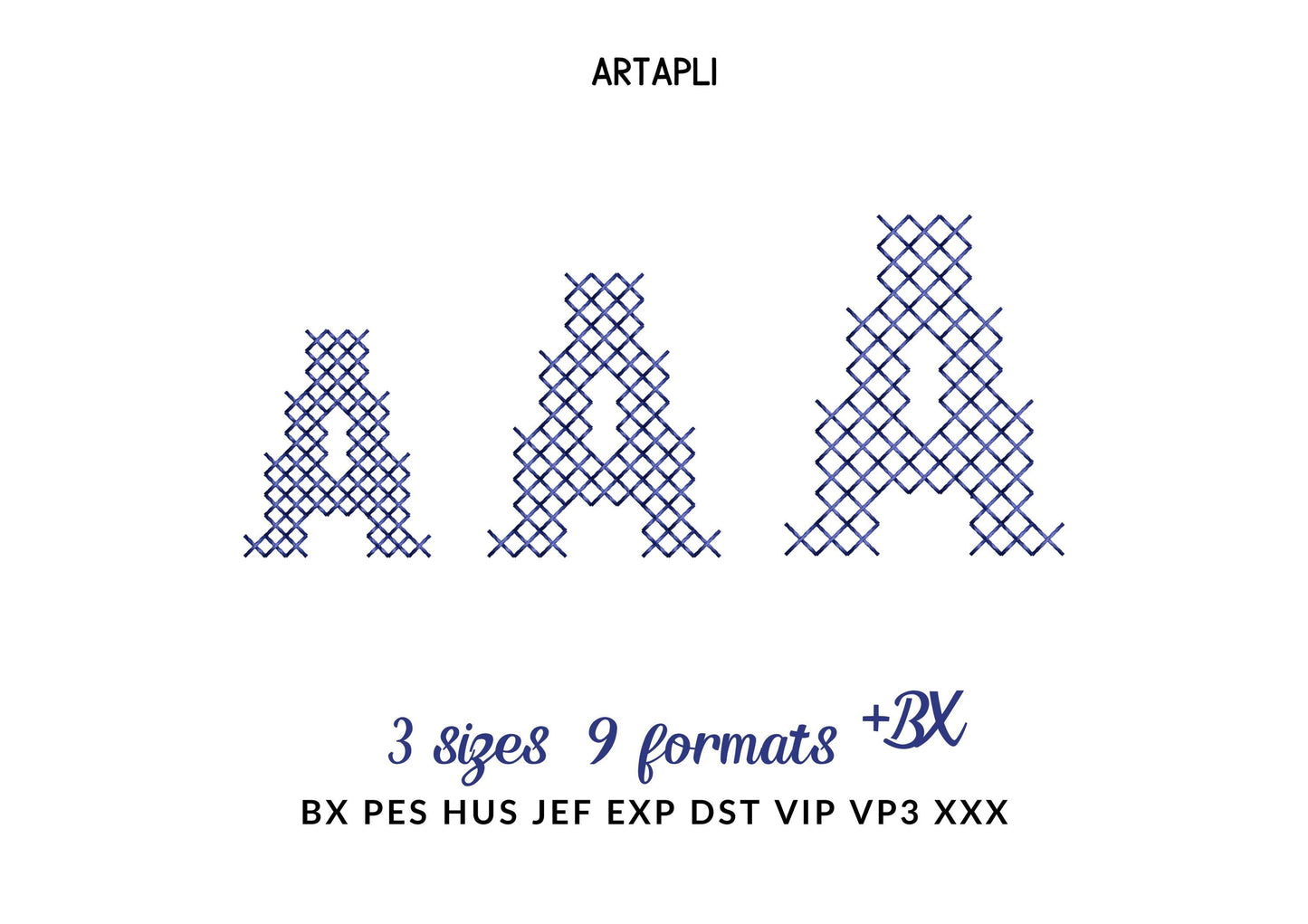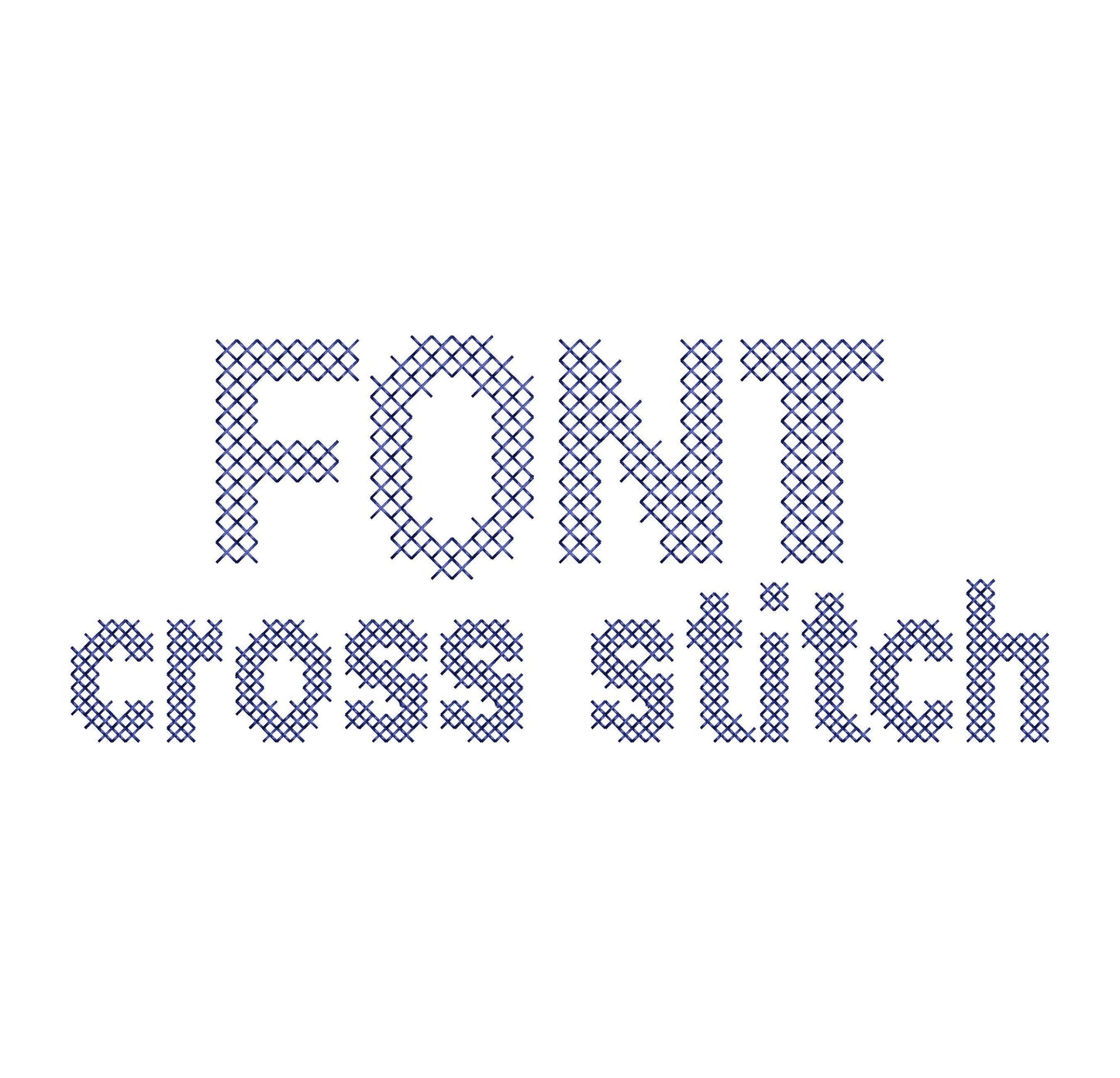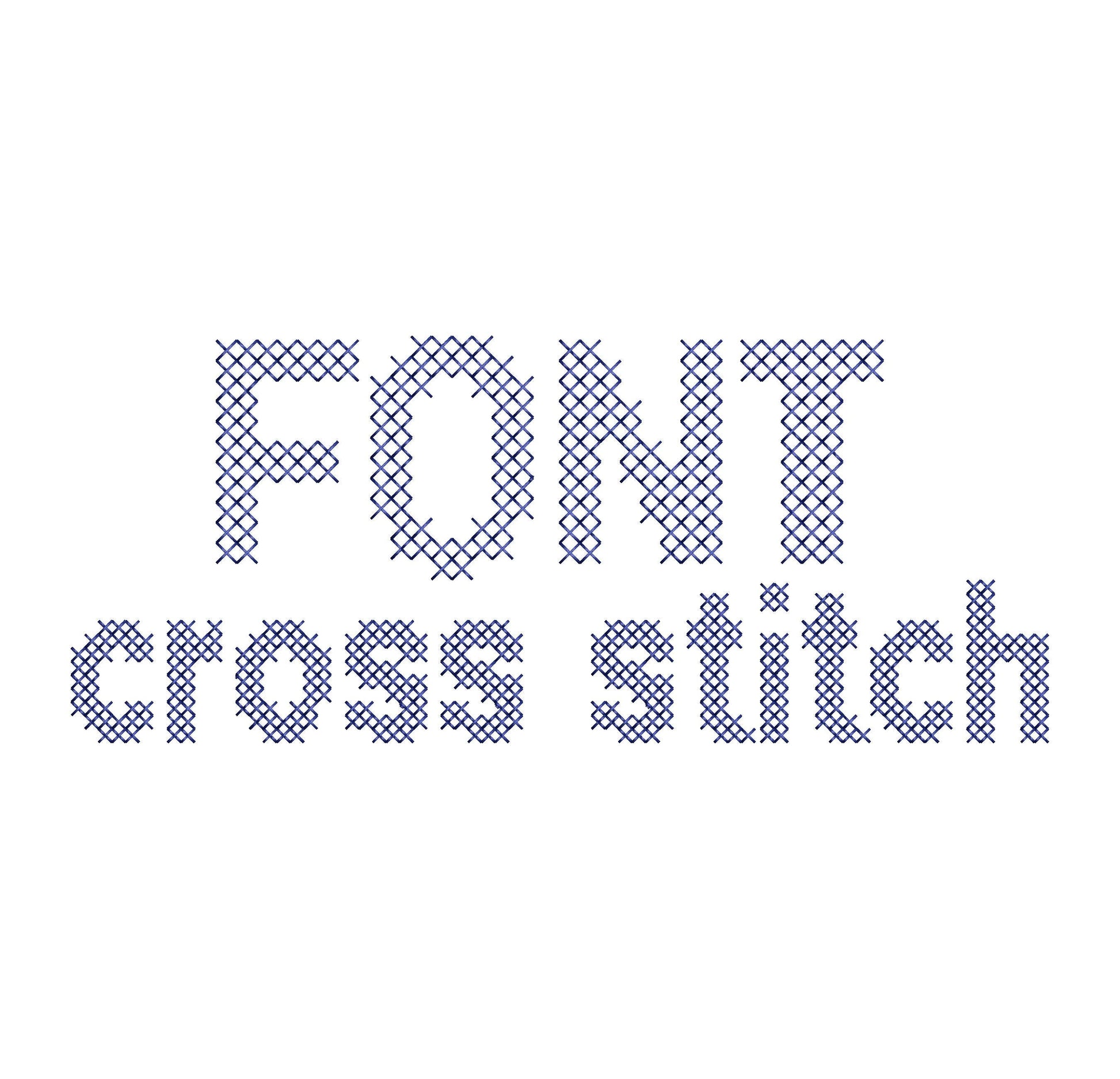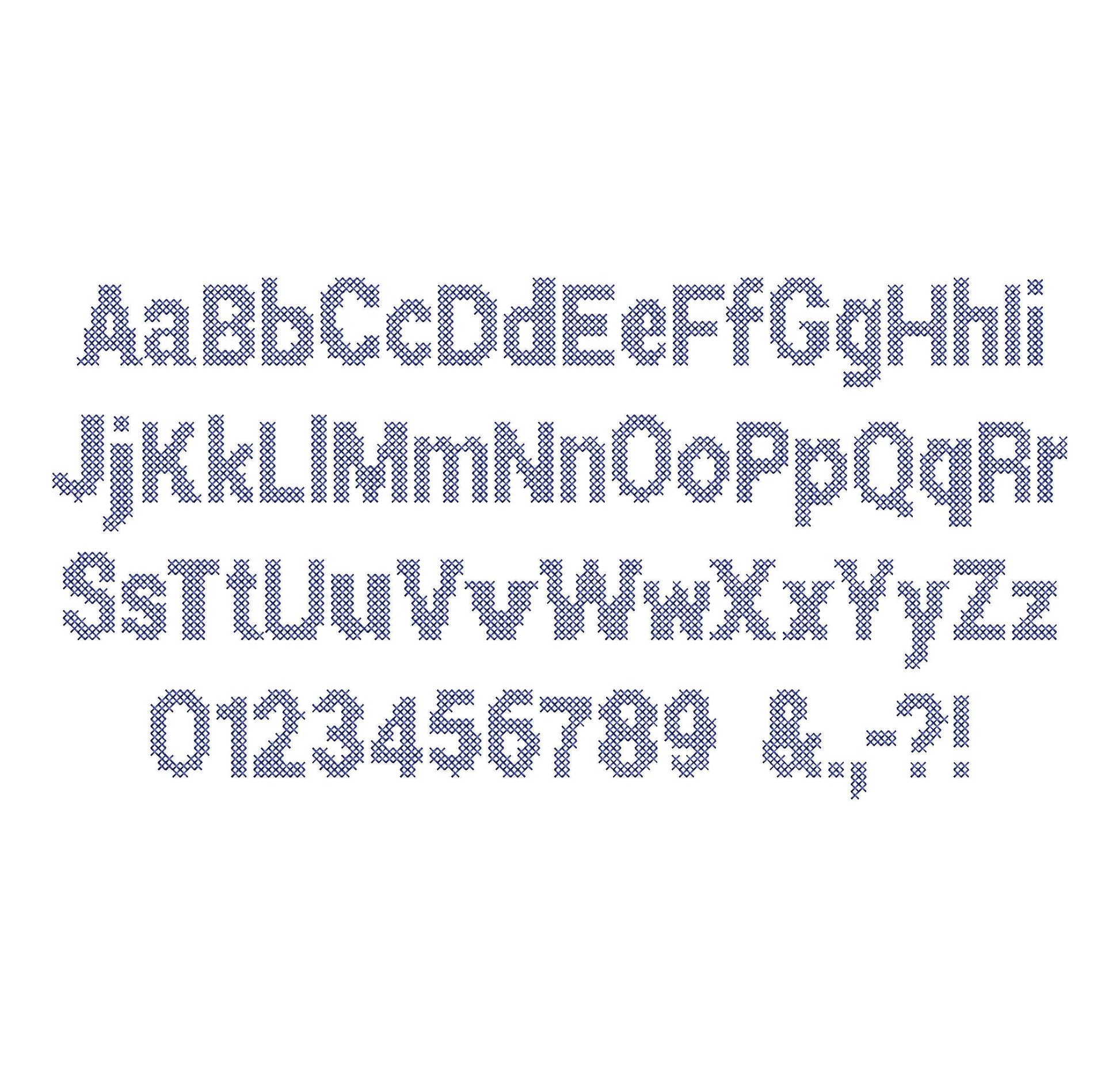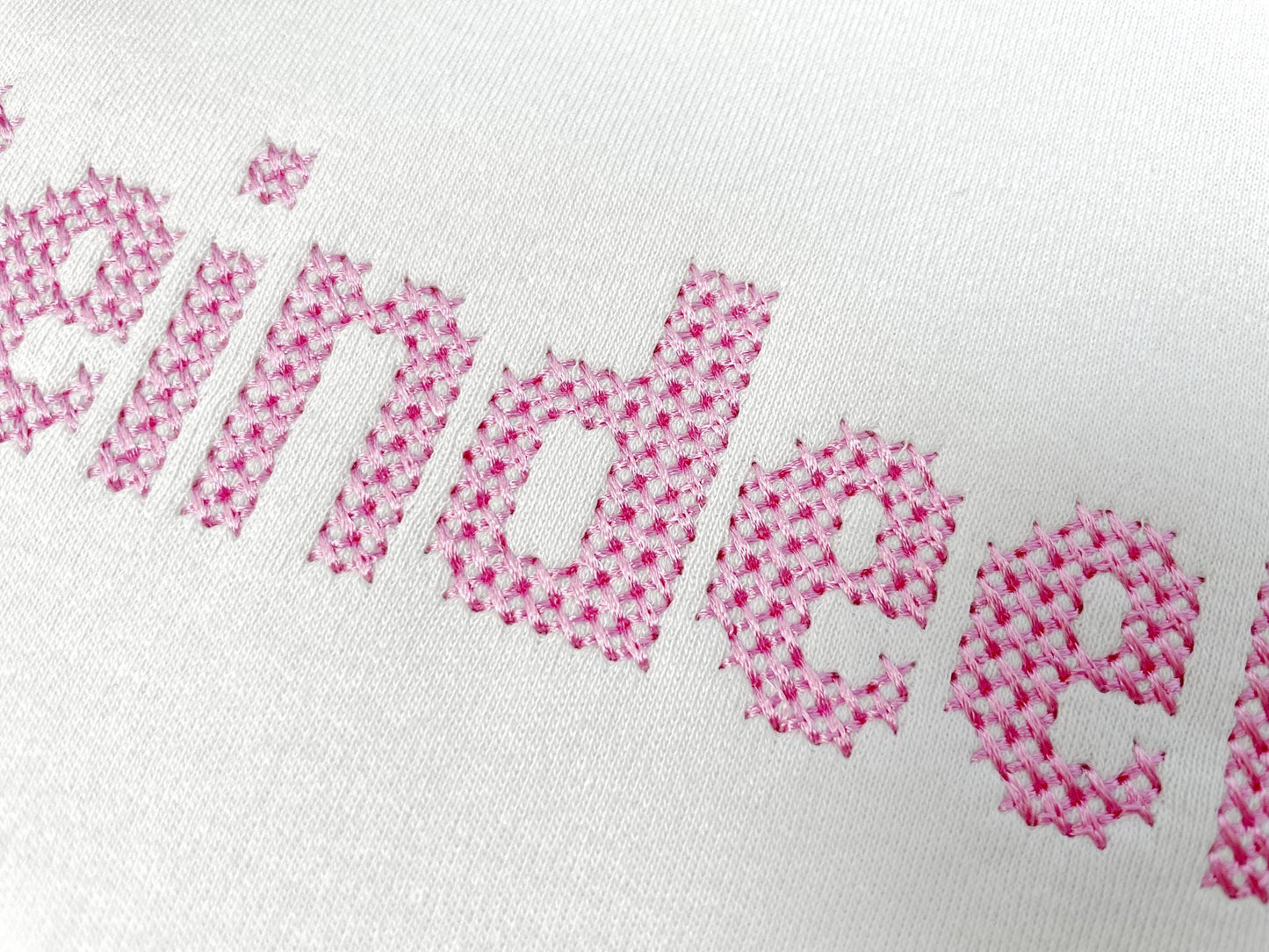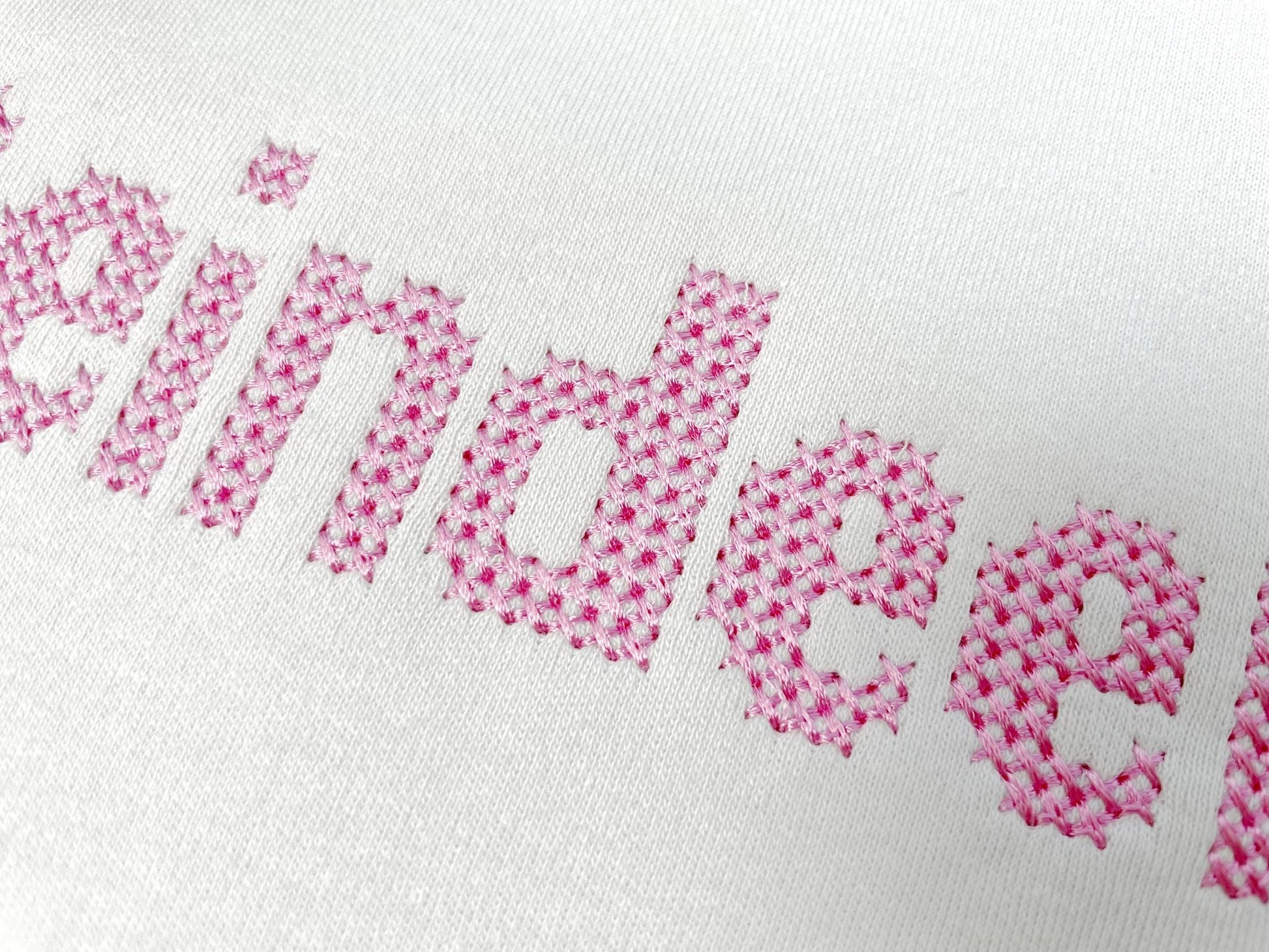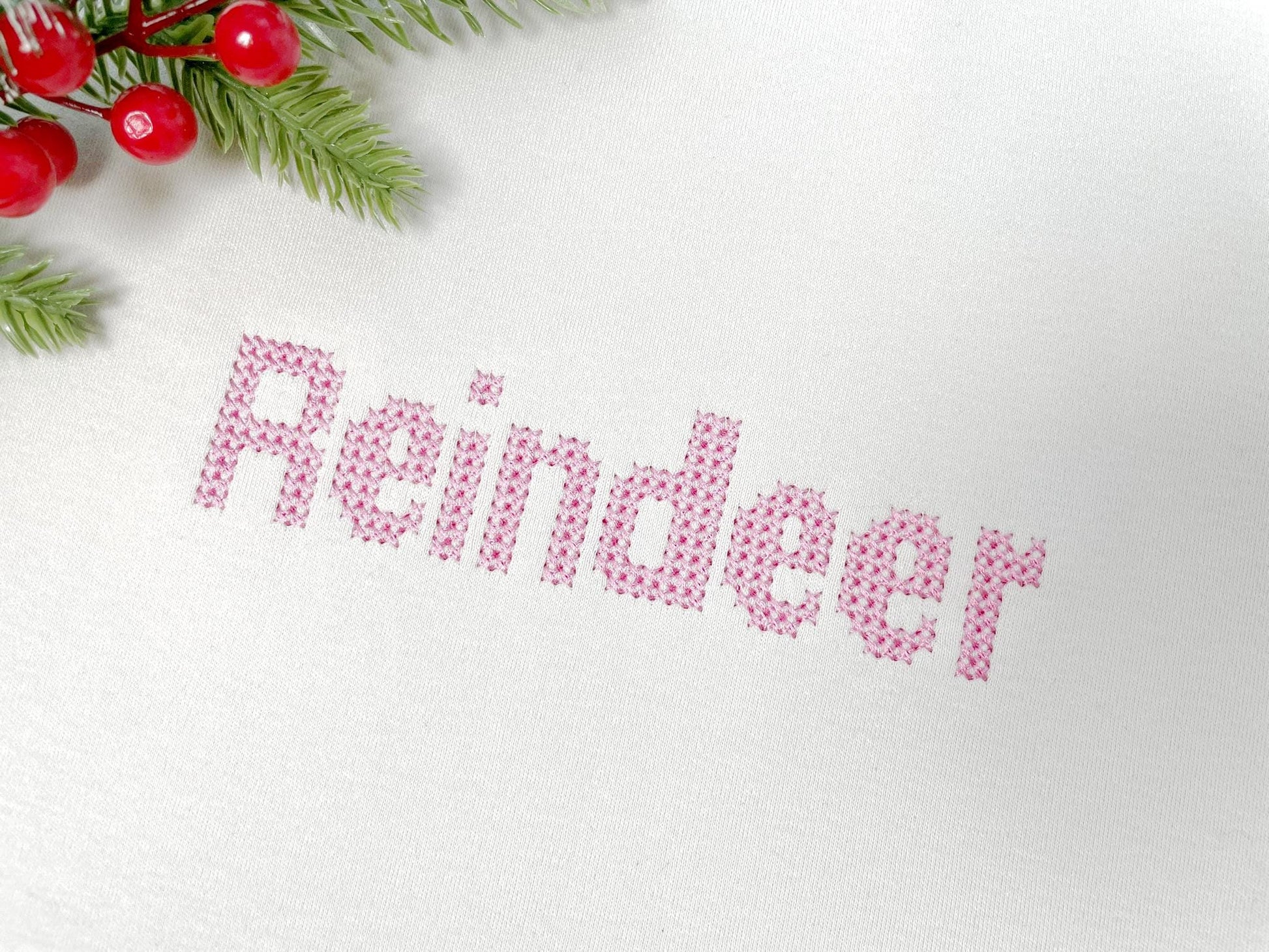
Cross Stitch Font Rory
Uppercase and lowercase letters, numbers 0 to 9 and punctuation, in three sizes: 1, 1.3 and 1.5 inches.
- Cross stitch block font Rory
- Uppercase, lowercase, numbers 0 to 9, punctuation
- 3 sizes: 1, 1.3 and 1.5 in